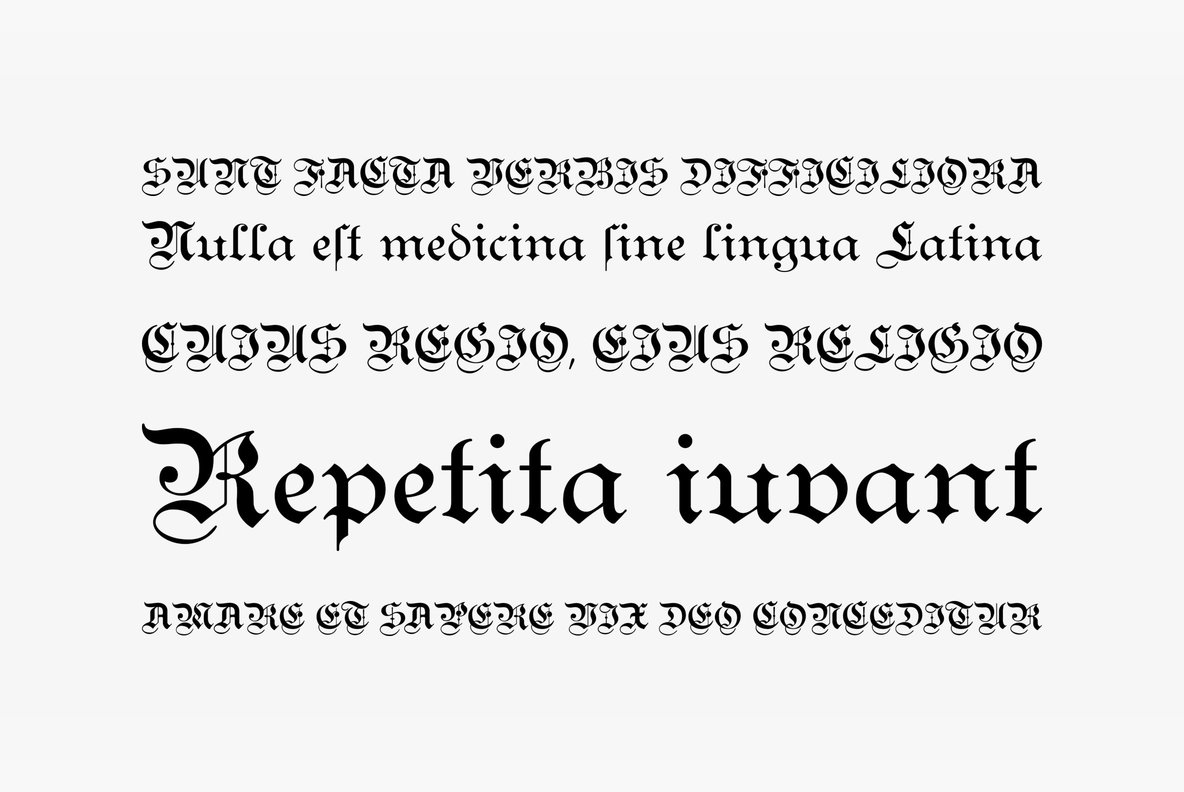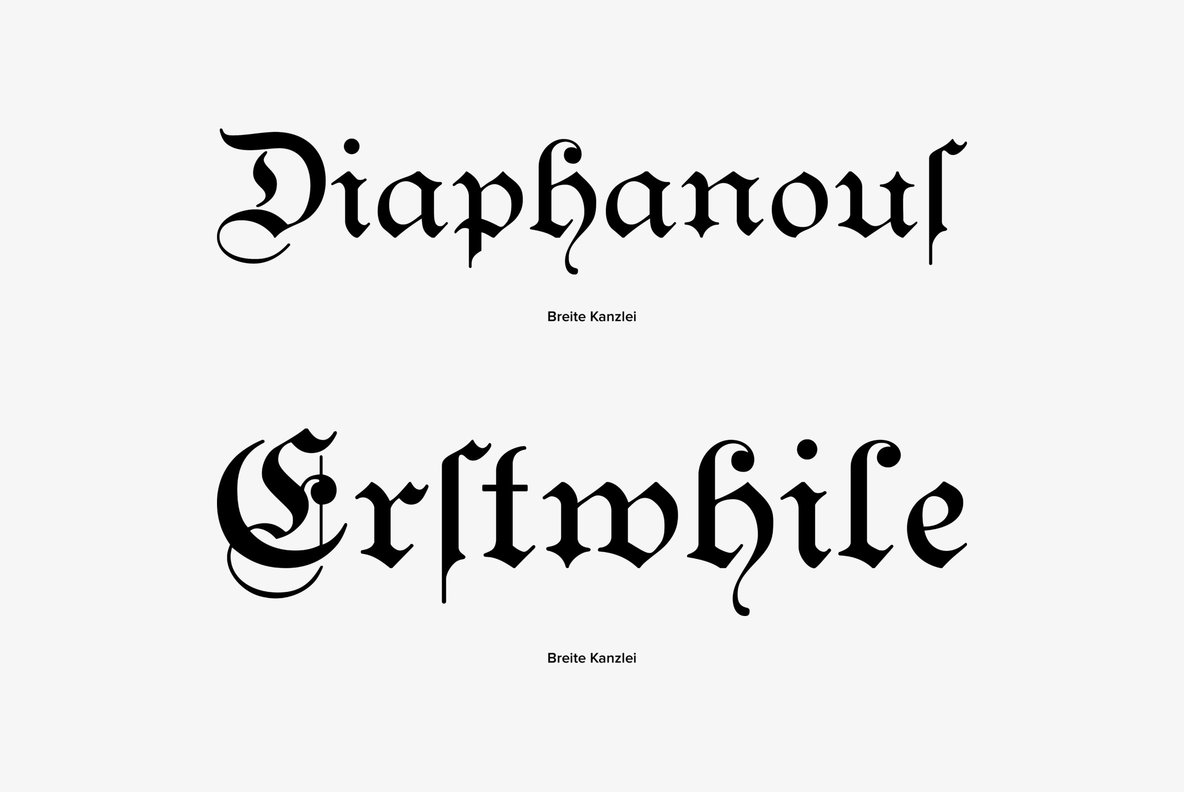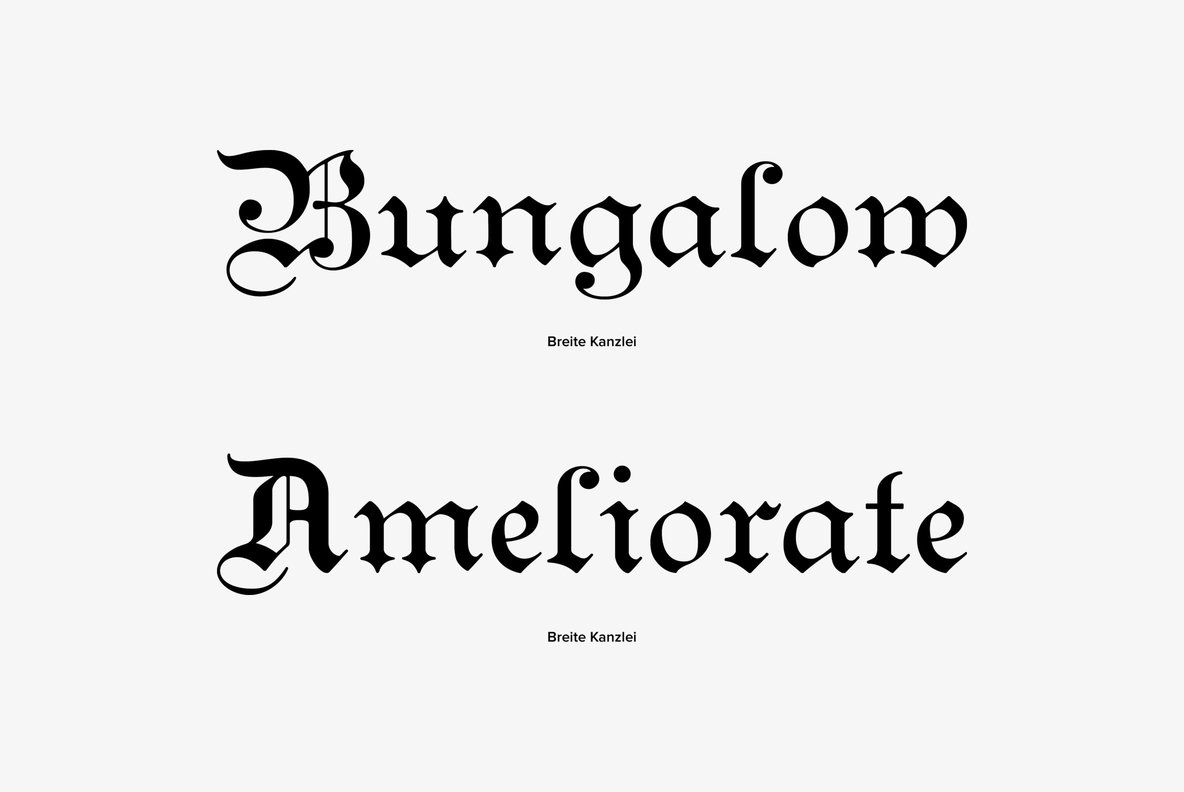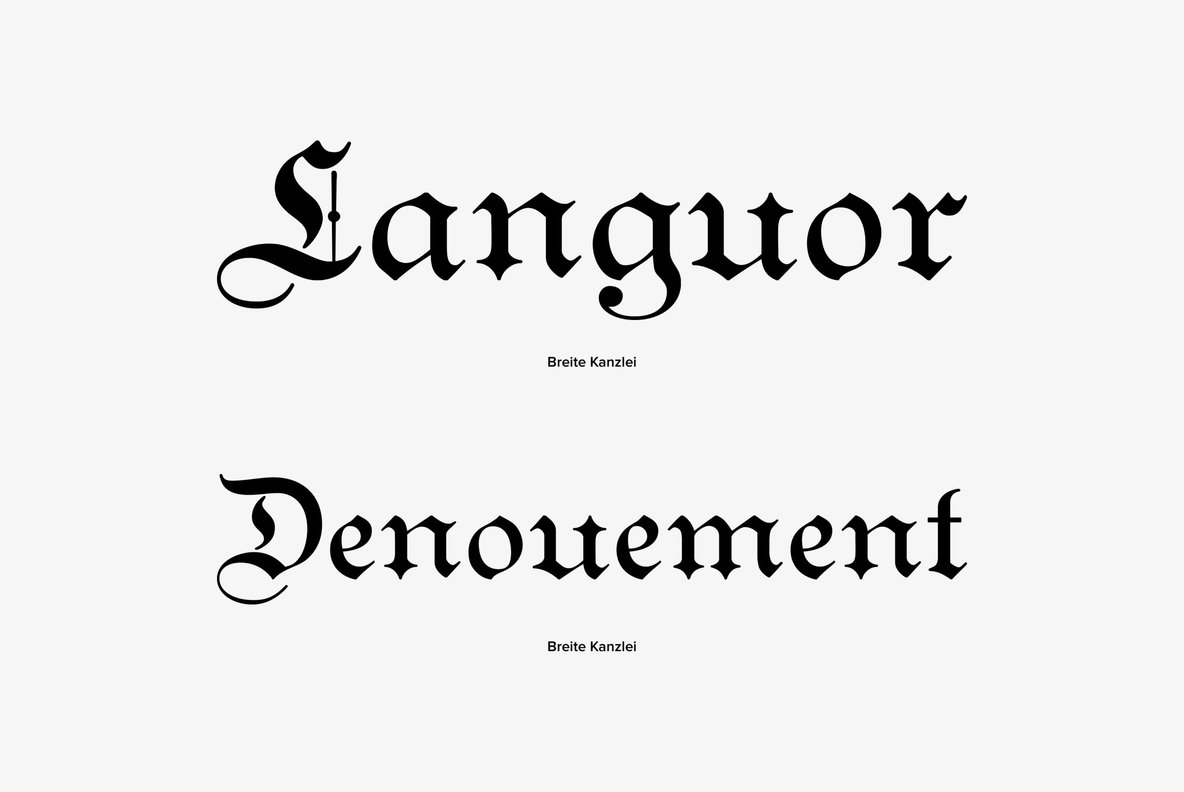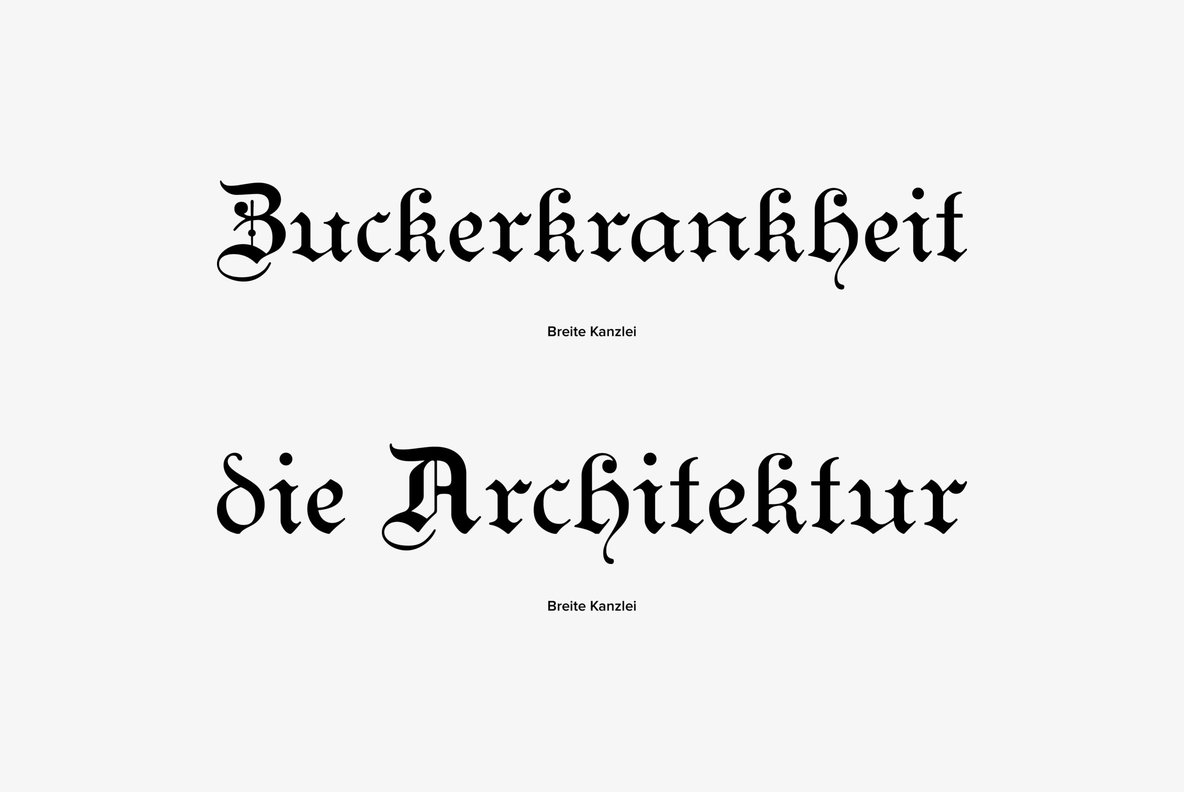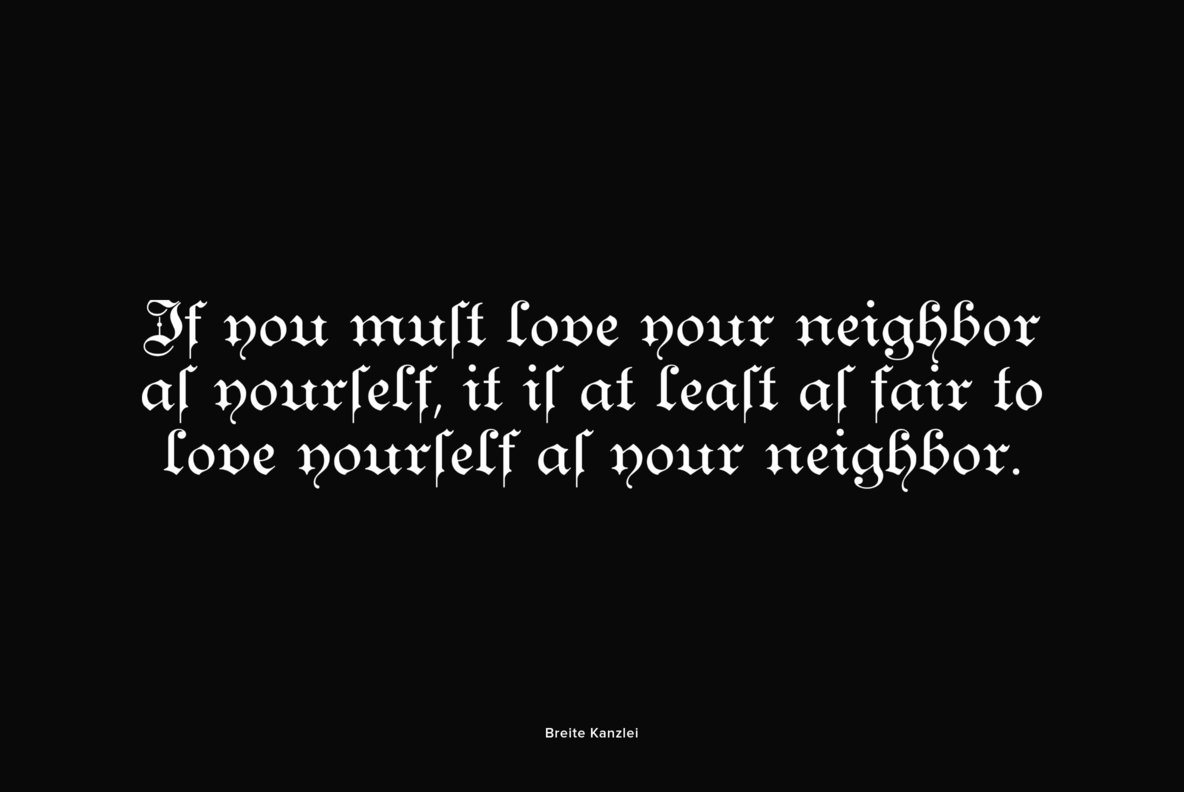
Breite Kanzlei
Ralph M. Unger, known for his preference for blackletter designs, brought this beautiful blackletter variant back to life. Based on artwork from old catalogues, he redesigned, digitally remastered and completed the character set for this typeface. Breite Kanzlei cannot be avoided by blackletter lovers!